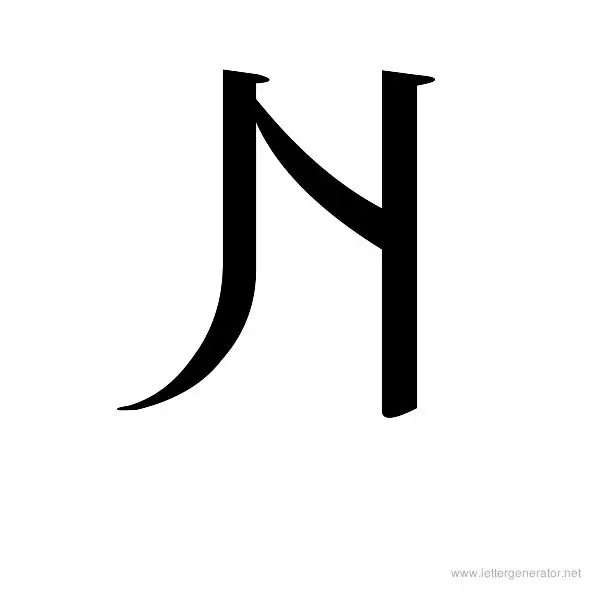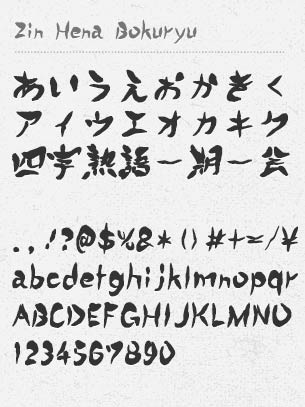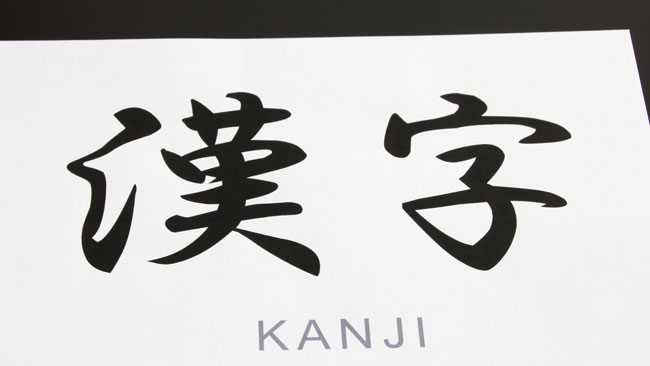
Download Calligraphy Fonts for free in the highest quality available. Kanji Name Generator Generate kanji name by your own name.
Japanese calligraphy font generator online. Harukaze Brush Font Japanese Calligraphy New Fonts. If you want to use Japanese fonts online without downloading you can use our text generator below. Looking for Calligraphy Japanese fonts.
Choose from Calligraphy letter themed fonts such as Aspire font Champignon font Hanfordscript font and Precious font. It is the design and execution of lettering with a broad tip instrument brush or other writing instruments. Kanji fonts generally support the four major writing systems used in Japan.
Calligraphy Generator calligraphy is a visual art related to writing. It also tells you the meaning of each kanji character. The following tool will convert your text to images and you can use different Japanese fonts colors text effects.
Kanji is a Japanese writing system based on modified Chinese characters. Marathi Calligraphy Fonts Free Download For Pc. Hiragana Katakana Kanji and Romaji.
Wait for the font generator to provide you with different styles. It is our hope that this free online reference will reduce the amount of improperly drawn ShodÅ as well as limit the inaccurate translations that we see on tattoos posters stock photos websites and more. Our collection of Asian fonts evoke serenity calm tranquility and tradition.
Hiragana Katakana Kanji and Romaji. Type your text into the font generator. For example when you want to use Japanese characters for your products or the goods of a hobby you can use this images.
Different text styles resulting from the generator can include unique cursive calligraphy handwriting and web script fonts. Our free online Japanese translation service Fudewaza will help you with all your Shodo image needs. Write whatever you want in the text box below and we will replace all letters and numbers with a Japanese styled font.
Simple and easy to use Japanese text generator. Convert standard text into crossed out text with this online Japanese text generator. Just like how it is said that writing expresses ones personality the way that the same text and words are conveyed differs according to the font usedOne of the differences between us and other competitor sites is that customers can choose three types of fonts out of 50 types of Morisawa fonts used by Japanese professional designers.
JAPANESE FONT TATTOO GENERATOR. You can also choose custom font. FREE JAPANESE FONTS Over 200 Japanese fonts including kanji hiragana katakana available.
As this page shows calligraphy looks expressive and beautiful it is widely used in wedding invitations and event invitations and calligraphy also has a large number of enthusiasts. This kanji name generator is an automated system which only to show you samples of kanji for your namePlease understand that sometime it may not show you appropriate kanji characters. Customize your Calligraphy letter text with our generator below and download or print your custom Calligraphy letters instantly.
If you dont want the hassle of downloading and installing fonts but just want to use calligraphy fonts fonts online you should check our. You will be able to find very rare fonts. Create your own Asian Japanese texts with this generator.
Japanese - Page 2. Ready to personalize and share in Facebook and Twitter. Its Free and easy.
For those who want to get Kanji tattoos t-shirts karatejudo belt book covers product packaging etc using Japanese kanji fonts Well translate your words or phrases into Japanese symbols designed with 3 different calligraphy styles and stencil outlines fonts you select. Every font is free to download. The Shift JIS X 0208 encoding is Microsofts encoding for a Japanese character set.
We offer fast servers so you can Download Calligraphy Fonts and get to work quickly. Fudewaza translate from English to Japanese and generate Shodo calligraphy image. Too often we see Japanese calligraphy used improperly and so we decided to offer our art work for free.
Choose the text style you like. Click to find the best 19 free fonts in the Calligraphy Japanese style. KANJI NAME GENERATOR You can enter your name in English and it will be converted to Japanese kanji and katakana.
How To Use A Calligraphy Pen For The First Time. Kanji fonts generally support the four major writing systems used in Japan. Online Calligraphy Font Generator Make your Free Calligraphy style text letters with our generator below.